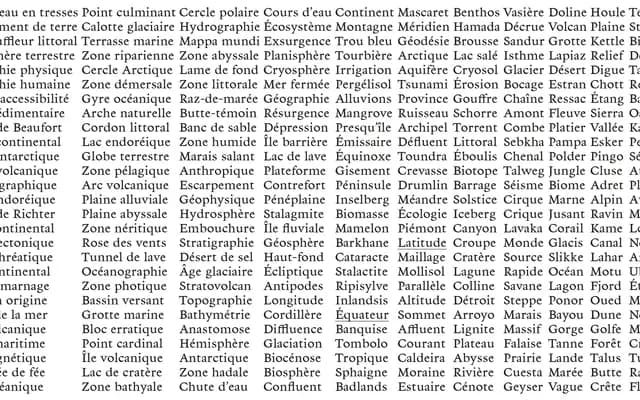
Latitude Équateur
A geometric sans-serif from the French foundry U+270D, produced as part of their academic and experimental type output.
Latitude Équateur is a geometric sans-serif typeface from U+270D, the type programme associated with EESAB. The design reflects the rationalist tendencies common to contemporary French type education and practice. Limited information is available from the page, but the work sits within U+270D's broader output of experimental and pedagogical typefaces.
The name and available context suggest a geometric or rationalist sans-serif design, consistent with contemporary French type practice at U+270D.